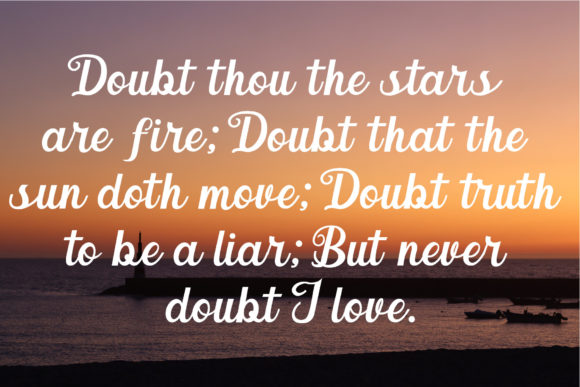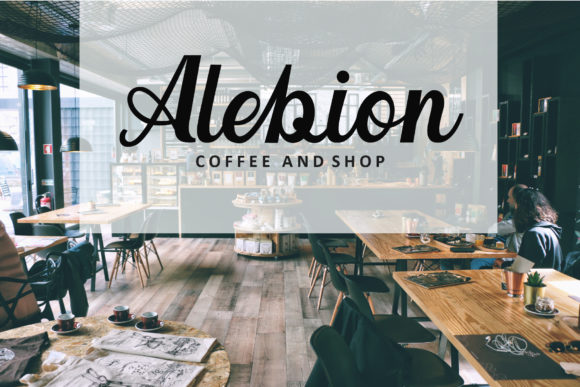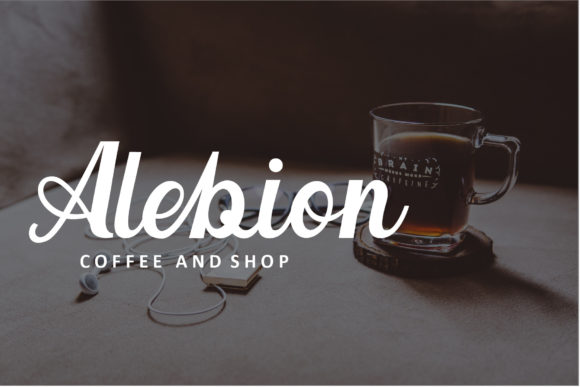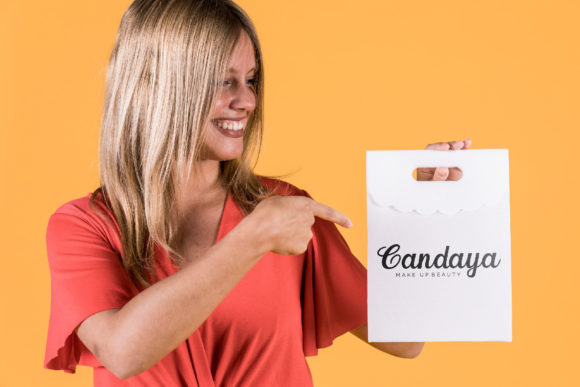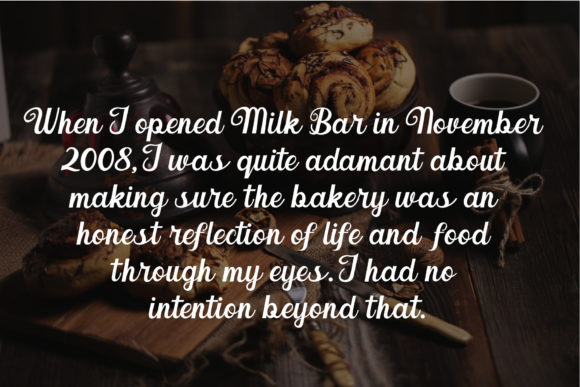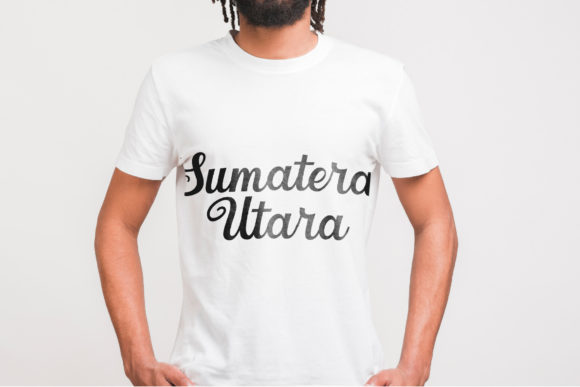
Introducing Abdan Font: Elevate Your Designs with Elegant Script
In the world of typography, a well-crafted font can make all the difference in elevating your designs to new heights. For designers and crafters seeking a touch of sophistication and elegance, Abdan Font is an exceptional choice. This stunning script font boasts a contemporary atmosphere and impeccable form, drawing inspiration from timeless classic calligraphy.
The Characteristics of Abdan Font
Abdan Font strikes the perfect balance between modernity and tradition. Its elegant script design is neither too thin nor too thick, ensuring that your text remains legible and refined. The font’s balanced and varied strokes bring a sense of fluidity and movement, making it ideal for a wide range of design projects. Whether you’re working on a logo, branding materials, or digital content, Abdan Font is sure to enhance the beauty of your creations.
Key Features of Abdan Font
- Elegant Script Design: Abdan Font features a beautiful, flowing script style that adds a touch of sophistication to any design.
- Contemporary Atmosphere: With its modern take on classic calligraphy, Abdan Font brings a fresh and contemporary feel to your designs.
- Impeccable Form: The font’s precise and clean lines ensure that your text remains clear and legible, even at smaller sizes.
- Balanced and Varied Strokes: Abdan Font’s varied strokes bring a sense of movement and fluidity to your designs, making them more engaging and dynamic.
- Unique and Versatile: Abdan Font offers a unique blend of classic and modern elements, making it versatile and adaptable to a wide range of design projects.
- High-Quality Design: The font’s precise lines and balanced strokes ensure that your designs look professional and polished.
- Ease of Use: Abdan Font is easy to read and works well in a variety of sizes, making it a practical choice for designers and crafters.
Abdan Font is an exceptional choice for designers and crafters seeking to add a touch of elegance and sophistication to their designs. With its elegant script design, contemporary atmosphere, and impeccable form, this font is sure to elevate your projects to new heights. Whether you’re working on a logo, branding materials, or digital content, Abdan Font is the perfect choice for those who value beauty, versatility, and high-quality design.